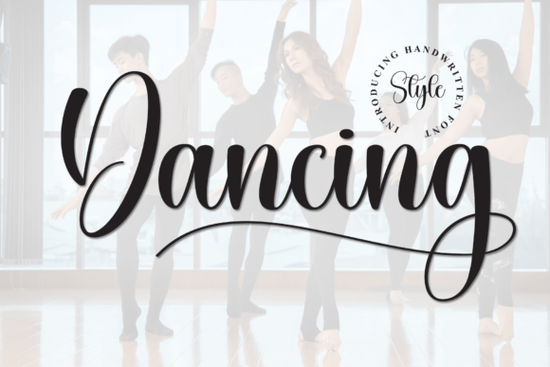
If you're a designer or small business owner searching for a handwritten script font that balances readability with personality, the Dancing Font is a strong option. It mimics the natural flow of dance, giving your text a sense of rhythm without sacrificing legibility. Whether you're working on a boutique brand logo or social media templates, this typeface brings a warm, human touch to the screen or page. You can use it across different media, from digital ads to printed brochures, without losing its charm.
What makes the Dancing Font different from standard script fonts?
Lots of script fonts look pretty, but they can feel static. Dancing is built around movement. Each letter connects with a smooth, flowing stroke that resembles genuine handwriting. It avoids being too fancy, so it holds up well in both display sizes and smaller text like product packaging. The thick and thin strokes add contrast, while the overall shape remains easy to read.
Is this font a good fit for branding and logos?
Yes, specifically because it avoids the stiffness of many corporate fonts. If you're building a brand around a natural, artisan, or creative theme, this font fits right in. Its flowing strokes allow it to serve as a strong wordmark without needing heavy customization.
- Logos: It works beautifully to imply elegance and personal service.
- Product packaging: Adds a boutique feel without being flashy.
- Versatility: Pairs well with clean sans-serif fonts, giving you a "modern meets handmade" contrast.
Can I use it for wedding invitations and greeting cards?
Absolutely. The elegant curves and natural charm make it a strong candidate for formal event stationery. Many script fonts struggle with readability in longer paragraphs, but Dancing Font maintains clear spacing and recognizable letterforms even in longer invitation text.
- Readability: Handles longer bodies of text (like event details) better than heavily stylized calligraphy fonts.
- Customization: The built-in swashes and alternate characters let you customize names and key phrases.
- PUA Encoding: You don't need fancy software to access those extra characters. They show up directly in your glyph panel.
How well does it work for social media graphics and print-on-demand?
If you're a print-on-demand seller or content creator, a font that stands out on a crowded feed is valuable. Dancing Font has a lively, dynamic quality that grabs attention without being difficult to read. This makes it suitable for everything from inspirational quotes to product labels.
- Social graphics: Adds an authentic, handcrafted vibe to Instagram stories. and Pinterest pins.
- Merchandise: Works well for short quotes on t-shirts, tote bags, mugs, and wall art.
- Scaling: It looks consistent whether embroidered on a hat or printed large on a poster.
What does PUA-encoded mean for this Creative Fabrica font?
You'll see this mentioned on the product page, and it's a practical feature. PUA (Private Use Area) encoding means that all the extra glyphs swashes, alternate letters, and decorative tails are mapped to specific keys on your keyboard.
Instead of copy-pasting from a chart, you can type the character directly using your design software's glyph panel. This makes customization faster, which is especially helpful if you are creating multiple product variations for a client or building a cohesive brand kit.
- Project type: Best for branding, weddings, or social media.
- Readability: Clear enough for short paragraphs and headings.
- Customization: Full access to swashes and alternates via PUA.
- Pairing: Works best with simple, clean sans-serif fonts.